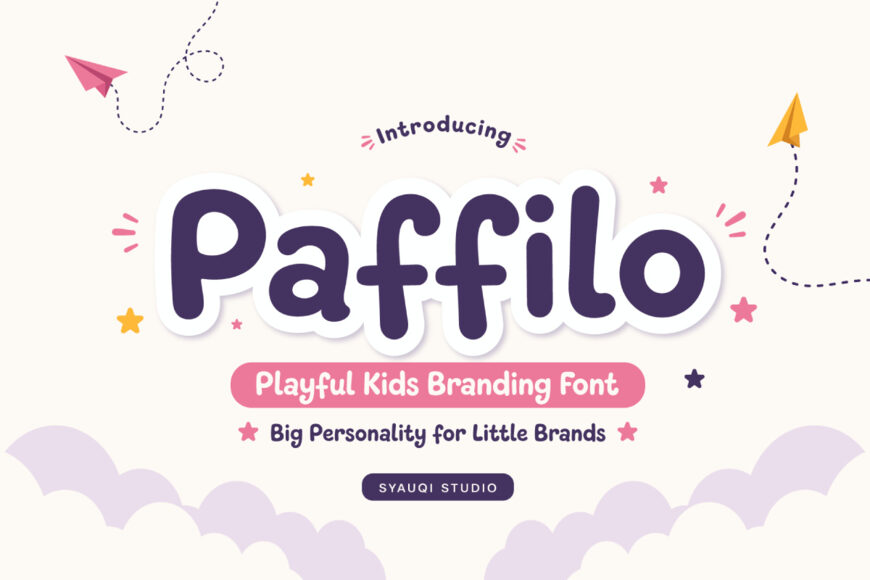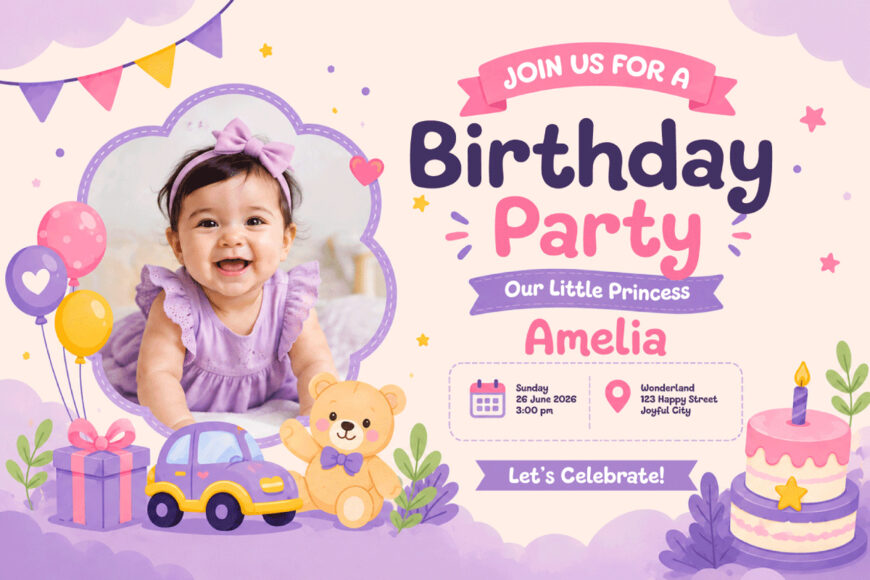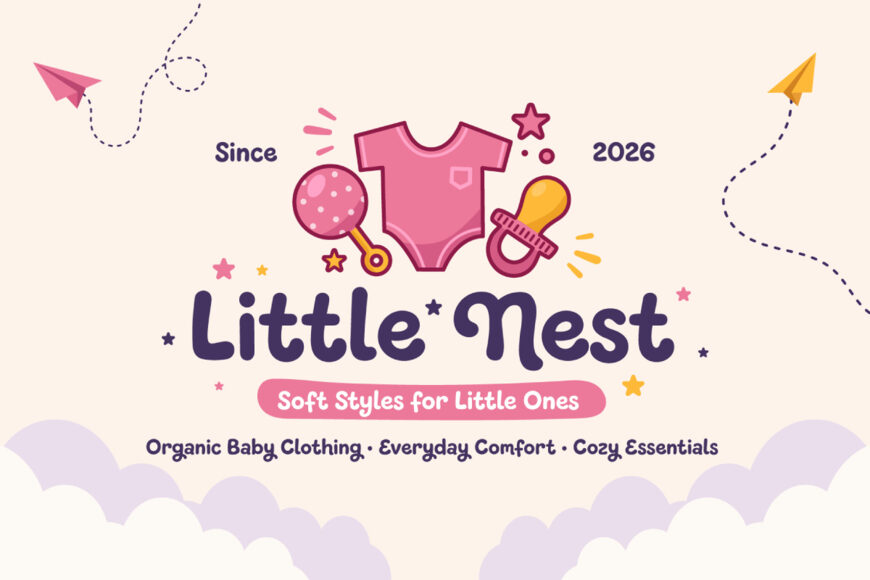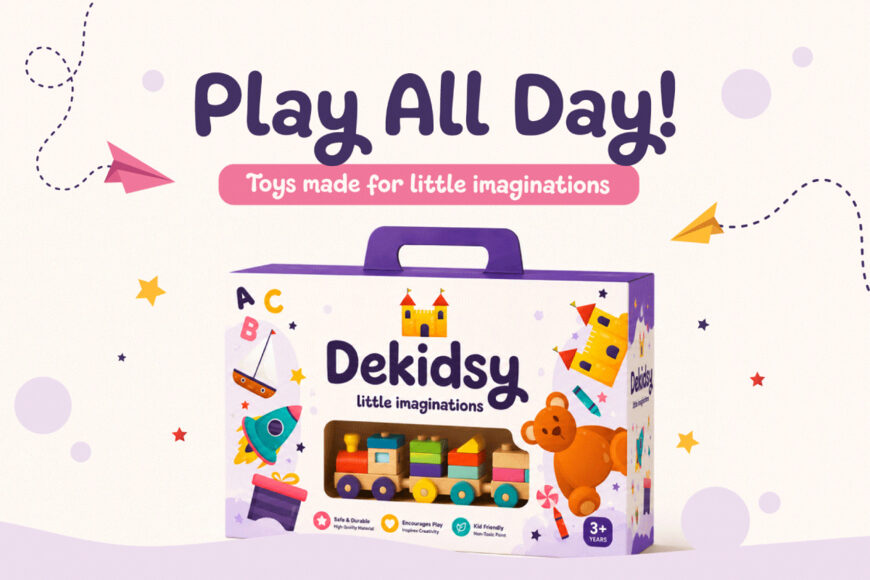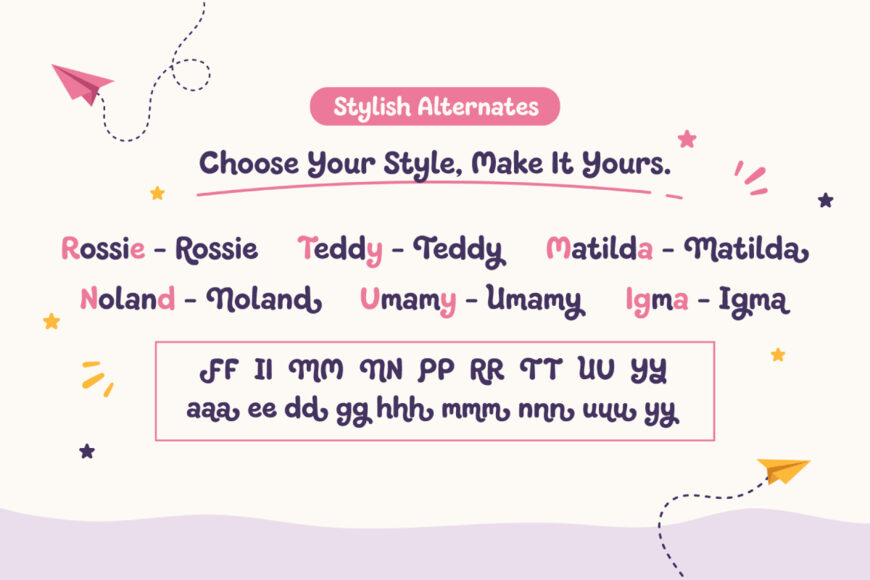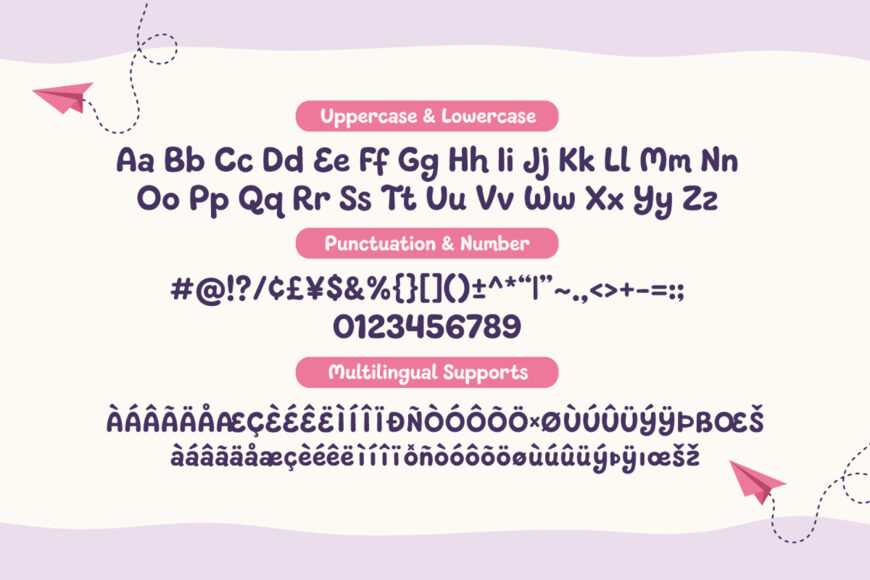
Paffilo Font
Paffilo is a playful kids display font with a cute, rounded, and friendly personality. Designed with soft curves, chunky shapes, and cheerful letterforms, Paffilo brings a fun and approachable character to every word, making it an excellent choice for brands that want to feel joyful, memorable, and full of personality.